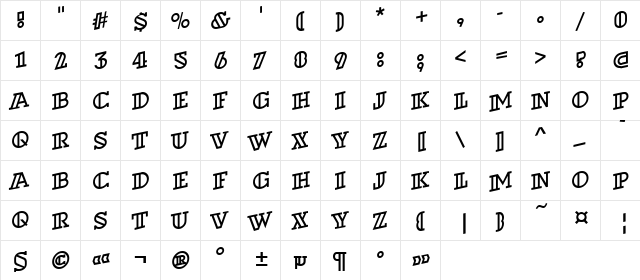
a_DexterOtlSpUp Regular Font Preview
a_DexterOtlSpUp Regular
a_DexterOtlSpUp Regular Font Details
Design Context for a_DexterOtlSpUp Typeface
a_DexterOtlSpUp is a composed and adaptable typeface that performs quietly and consistently across a wide range of design contexts.